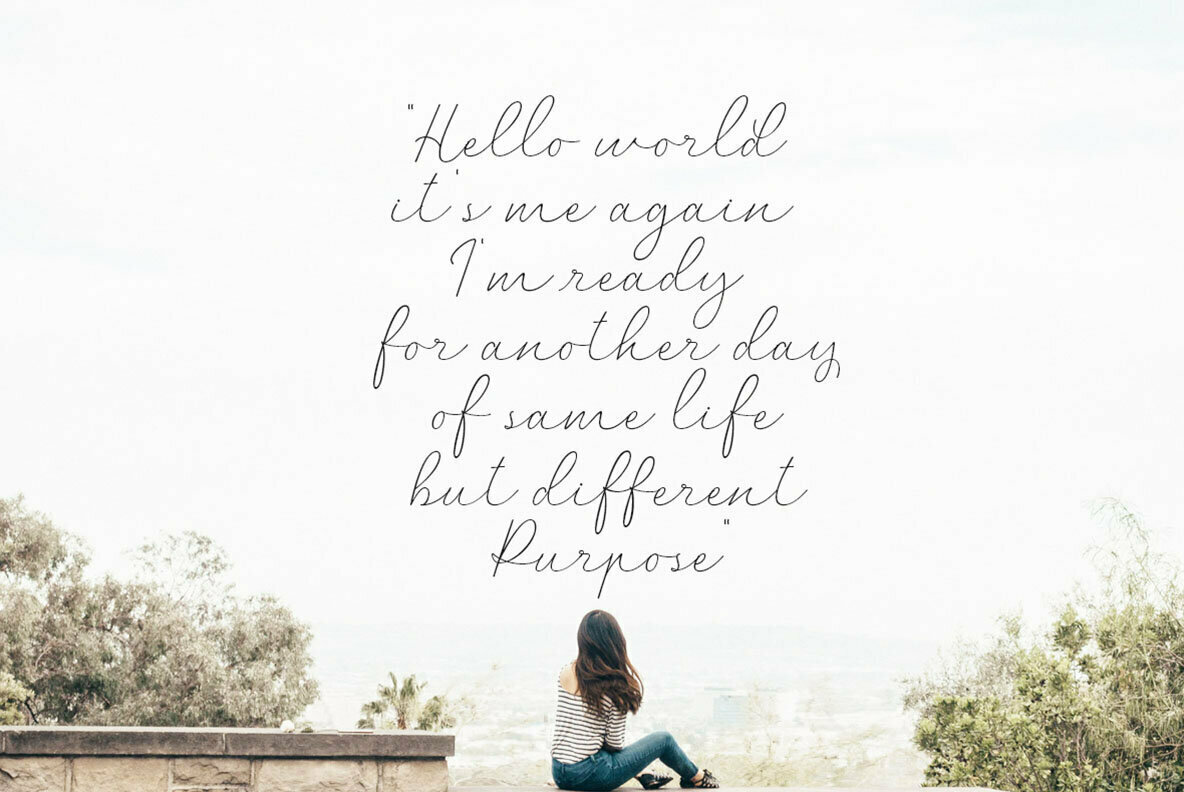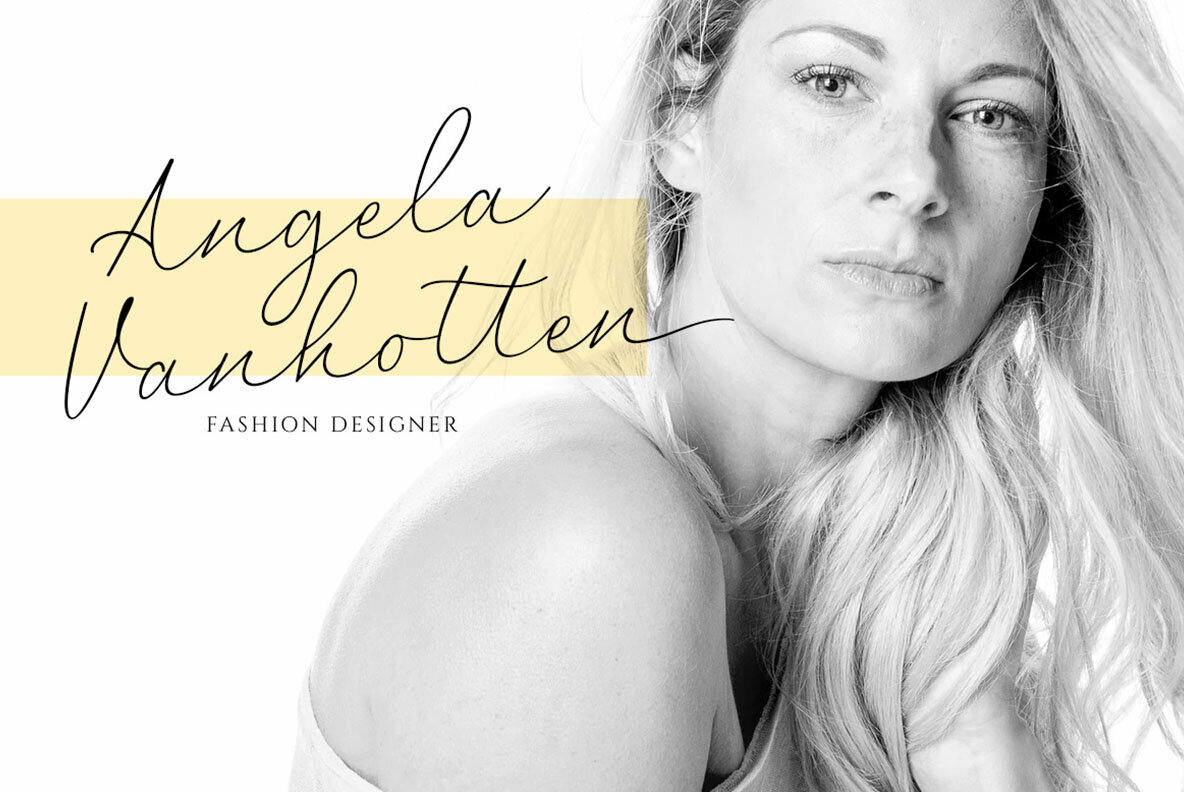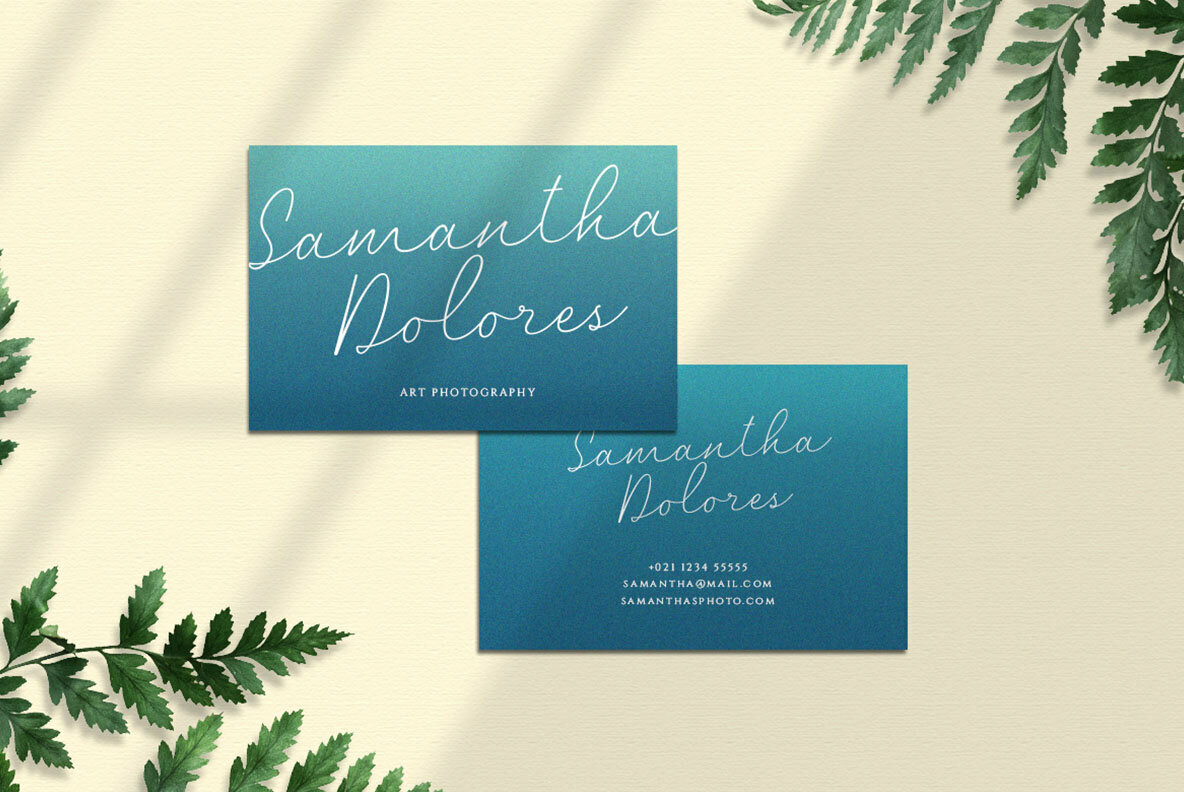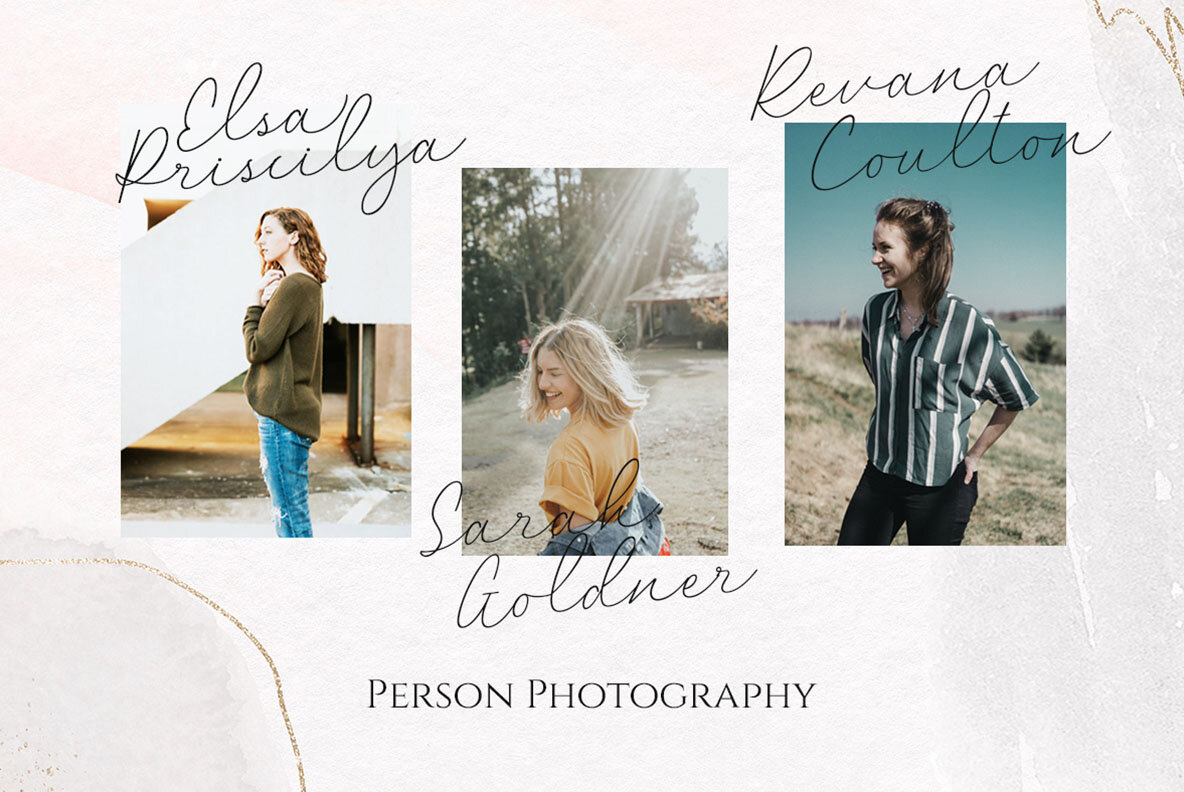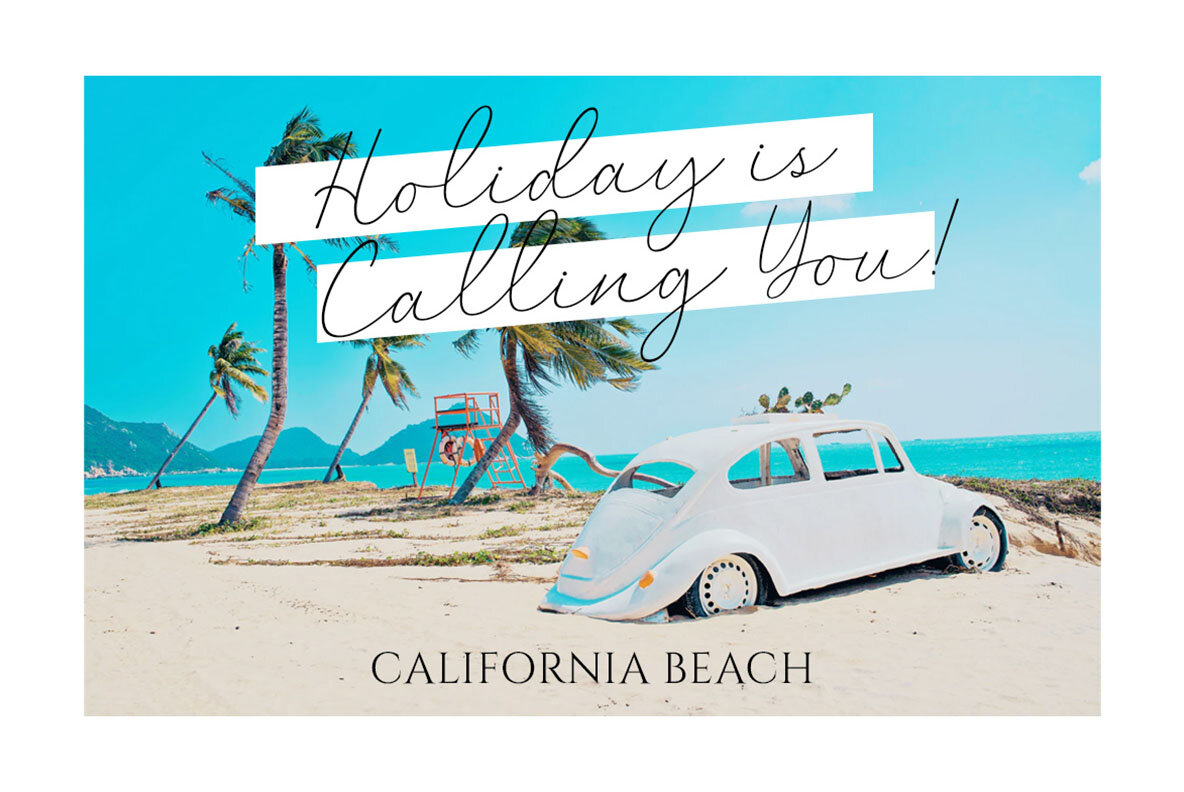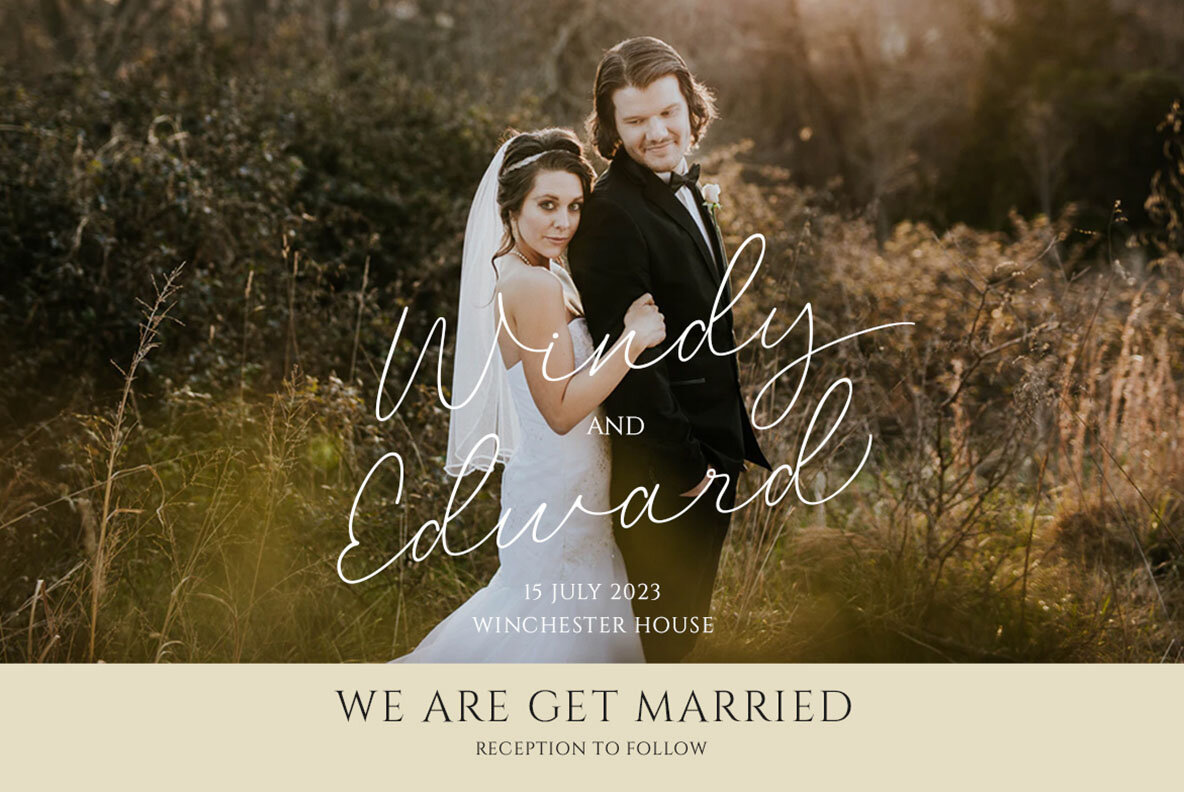
Marina Bullock Font
Marina Bullock
Introducing Marina Bullock, a script font meticulously crafted to echo the personal touch of authentic handwriting. Its graceful curves and flowing lines make it an excellent choice for creating logos, formal invitations, and a variety of print materials. Whether you're designing wedding cards or fashion labels, this font adds a sophisticated charm that enhances every project.Marina Bullock: A Signature Script for Elegant Branding